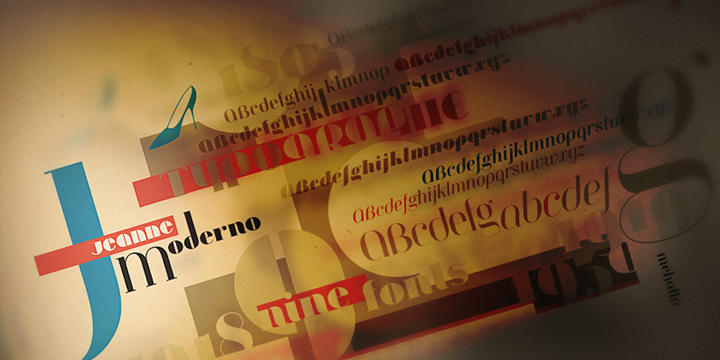
Jeanne Moderno™
par steve mehallo
La famille de polices Jeanne Moderno a été conçue par Steve Mehallo et publiée par steve mehallo. Jeanne Moderno contient 9 styles et options de package familial. En savoir plus sur cette famille
Jeanne Moderno is a revisionary type family. A synthesis of Bodoni Italic and 19th Century Ultra-Bold "Fat Faces"—distilled with personality taken from early 20th Century Modernists; the Futurists, Dadaists, Suprematists, Constructivists. Historically, Jeanne Moderno could have appeared on the scene around 1918—after the First World War—when new cultural movements, manifestos, theories and countertheories shaped art, industry and society. Spatter in a few later influences—from De Stijl, the Bauhaus, the types of Herbert Bayer, Josef Albers, Paul Renner—plus a twist of Art Deco and High Fashion—Jeanne Moderno is a remanifestation of 19th + 20th Century Modernist thinking; traditional + revisionist, raw and elegant! Jeanne Moderno can best be used for magazines, advertising, posters, flyers, fashion reports, letterpress experiments, silkscreen endeavors, exhibitions, DMV signage, paper money, revolutionary political statements as well as formal declarations of peace or war. Jeanne Moderno is about the future, the past. The Avant-Garde. Humanist geometry + vintage footwear. Form, function, style, art and life.
Freelance graphic designer steve mehallo originally started designing fonts for his own use. And each font exploration became niche experiments all their own; mehallo develops his typefaces typically as a response to a design problem, a historical quandary or as a need for that perfect font for a certain job. Precise outlines, even on the rough stuff, are all part of mehallo's typographic repertoire. Today, custom font development and logo renderings are a speciality. All of his fonts have deep roots, detailed design research is behind every letter – mehallo also teaches graphic design history and typography courses in one of his other lives. steve's fonts have also been available thru Monotype, Linotype, Psy/Ops, Ascender Corp, FontShop and ITC.